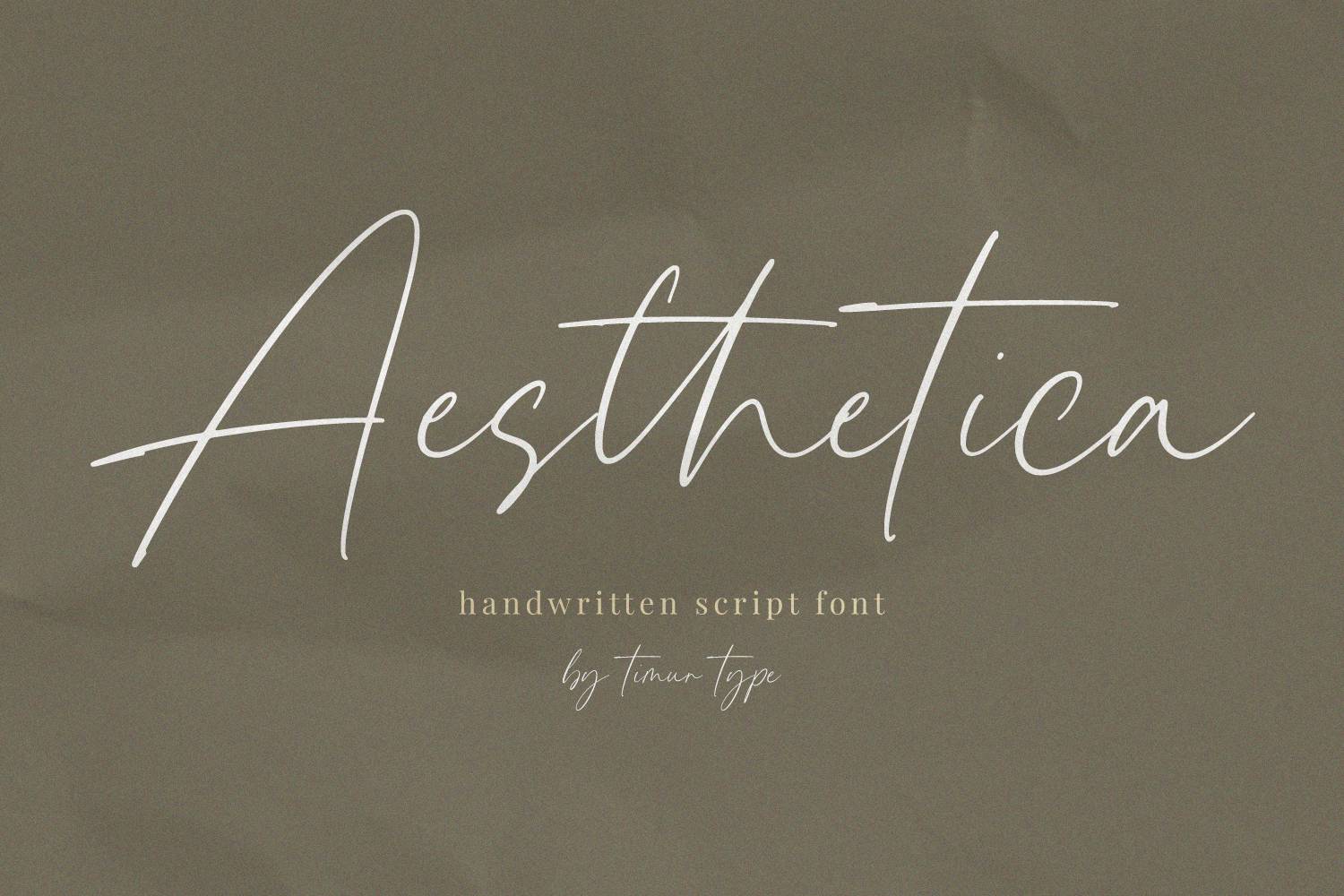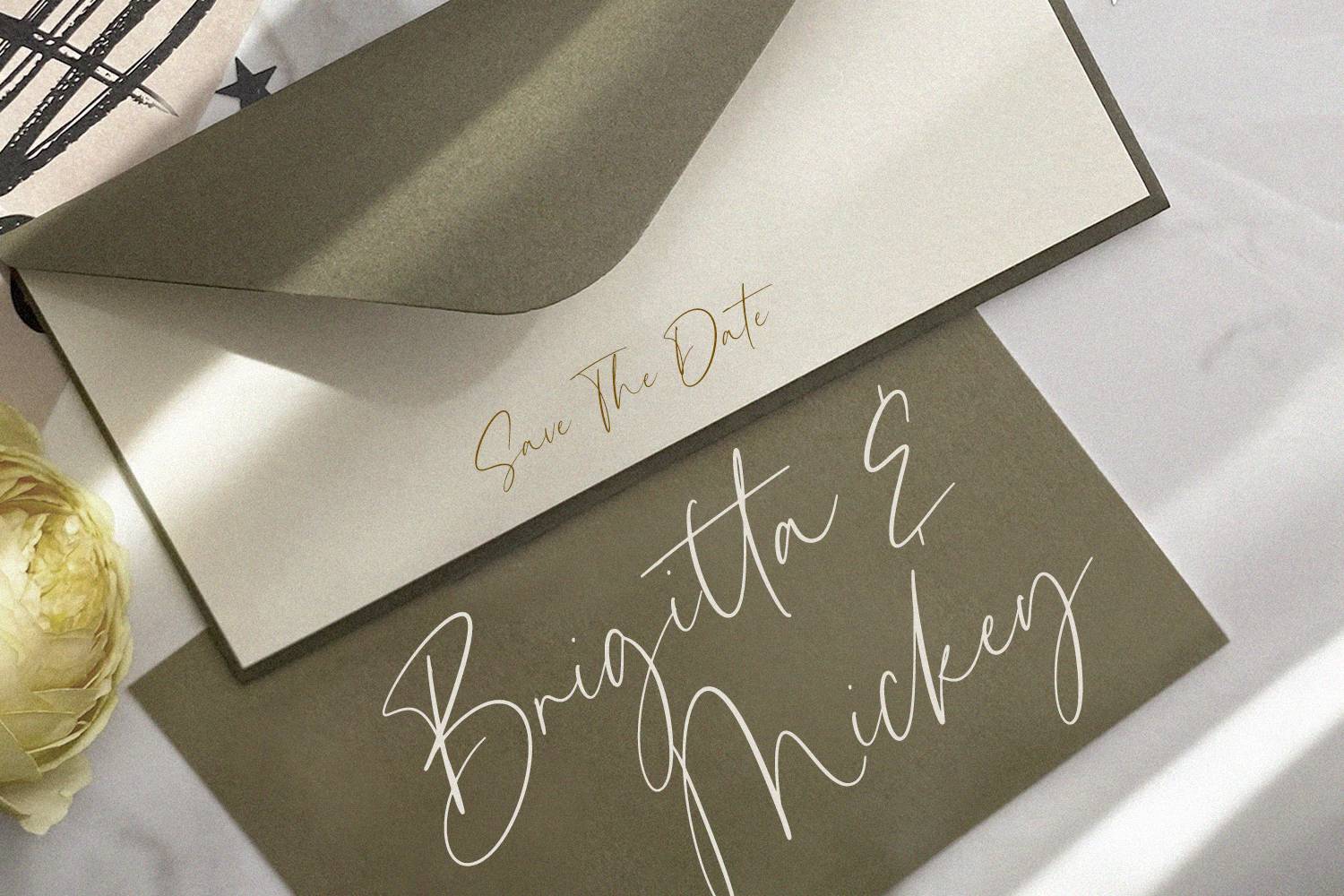
Aesthetica is a delicate, elegant script font characterized by its slender, flowing strokes and graceful handwritten style. Its light weight and airy spacing give it a refined, sophisticated feel, making it perfect for branding, invitations, and editorial projects that seek a modern yet personal touch. This font works especially well in designs where a sense of elegance and individuality is desired.
Aesthetica Font
About Aesthetica Font